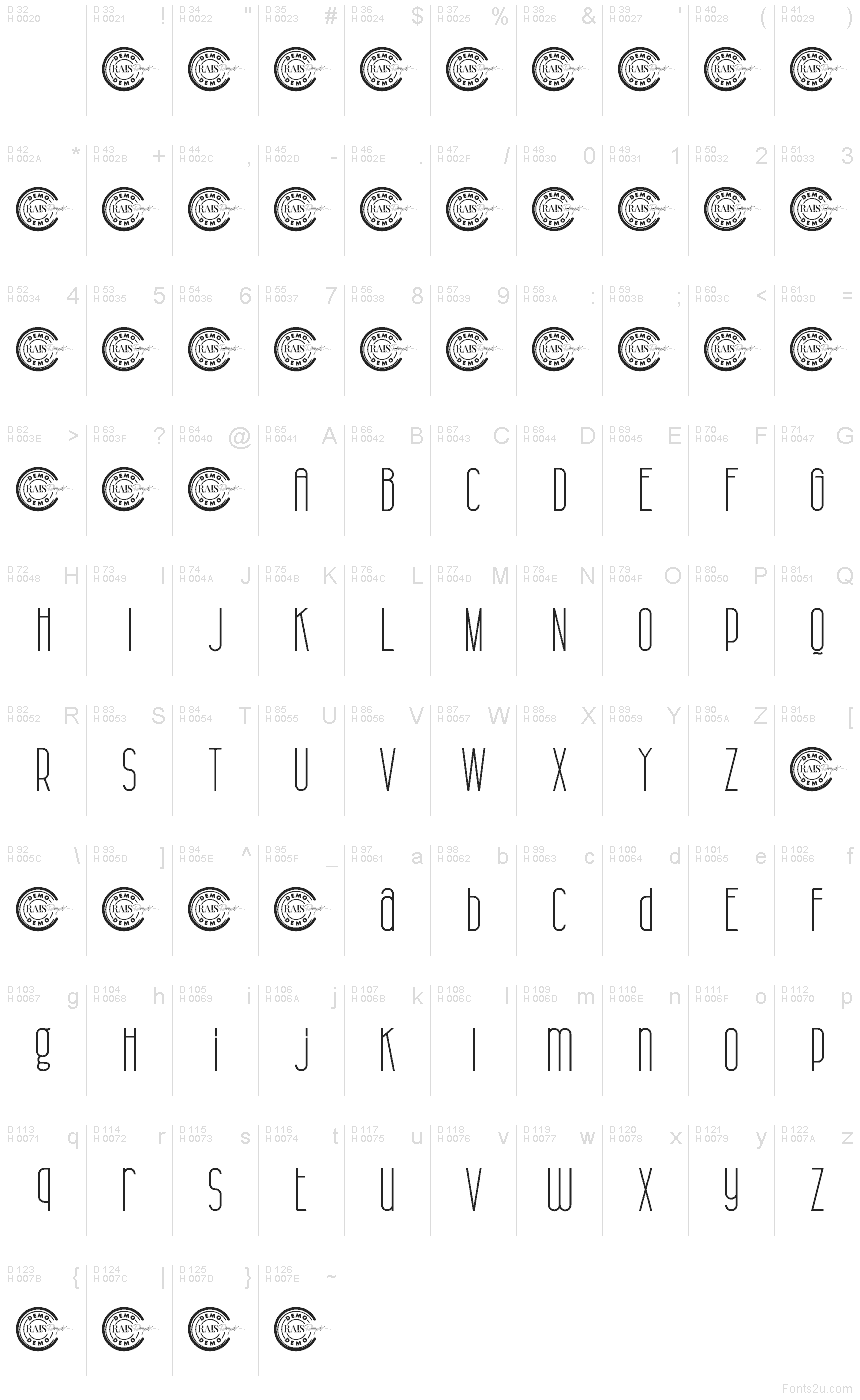
Golden Berry Demo
Golden Berry font by RaisProject is a free monoline retro display font. Built around tall, tubular strokes and rounded bends, it reads like bent wire—sleek, compressed, and delightfully Deco. The vertical rhythm is tight yet airy, thanks to generous apertures that keep the forms crisp instead of claustrophobic, giving headlines a glamorous, neon-lit snap.
Using Golden Berry, titles and logos demand attention on posters, boutique branding, beverage labels, album art, magazine covers, and packaging. The consistent stroke weight creates a clean, polished sheen that scales beautifully for bold marquees and slim taglines alike. For balance, pair this free font with a simple sans serif for body copy, and add a touch of tracking to let those elegant curves breathe.